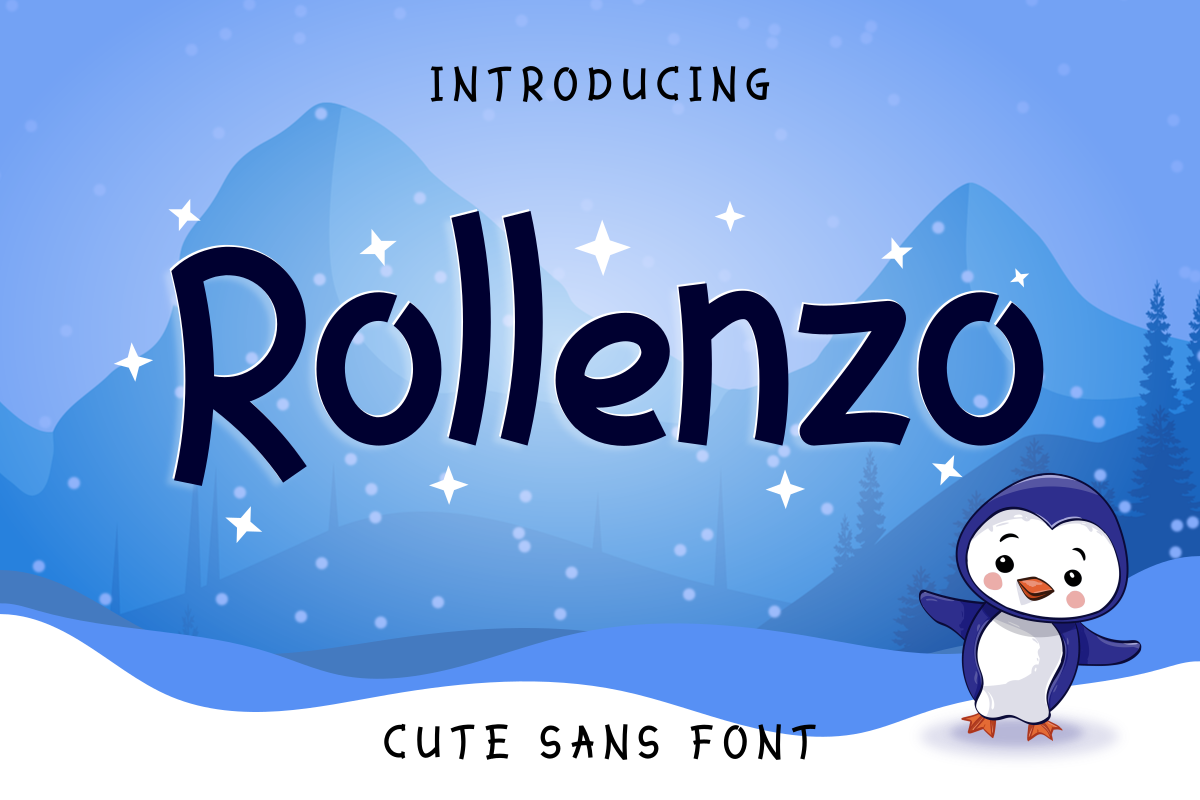
Rollenzo
Rollenzo - A Cute Sans Font. This funny font is inspired by the funny movement of penguins. Hope you like it. This font is great for logos, name cards, magazine layouts, invitations, headers, or even large-scale artwork.
1. Rollenzo - A Cute sans serif font including upper & lowercase characters, numerals and some symbols.
2. Multilingual support for various languages